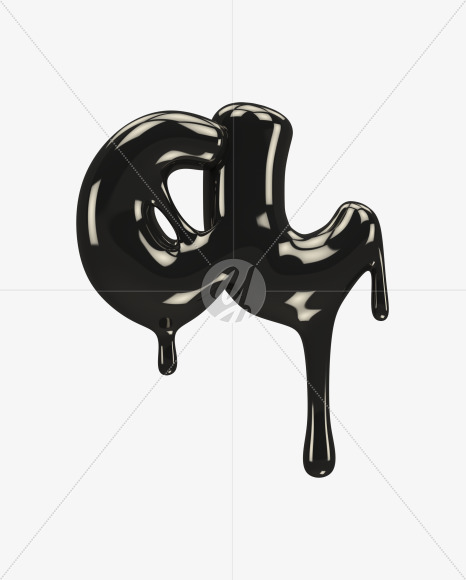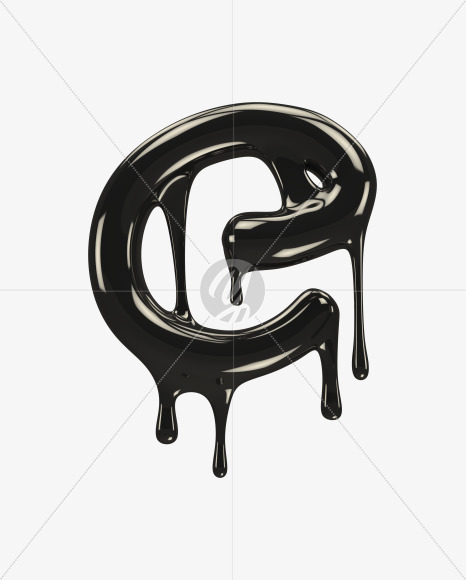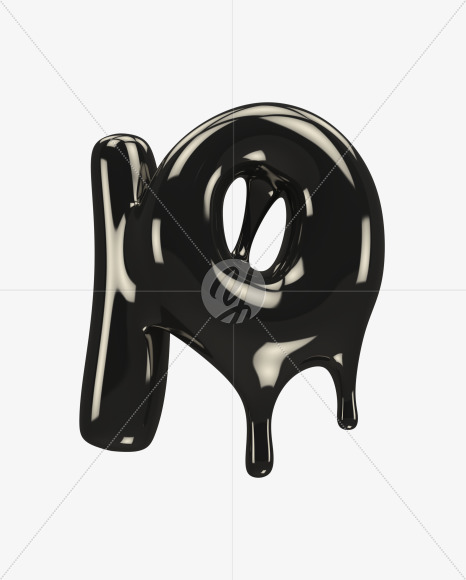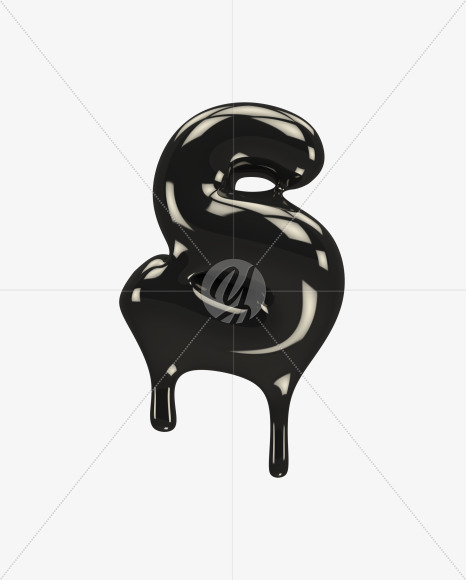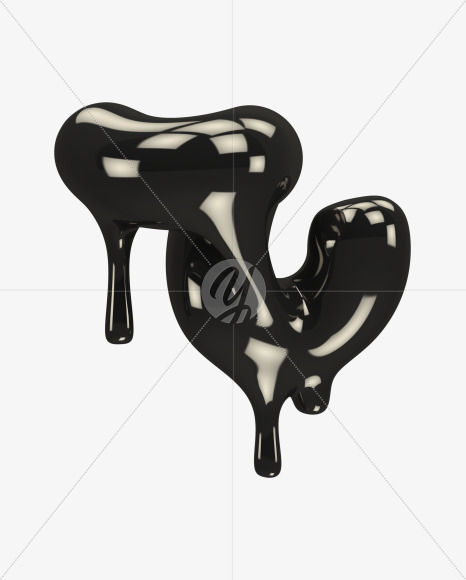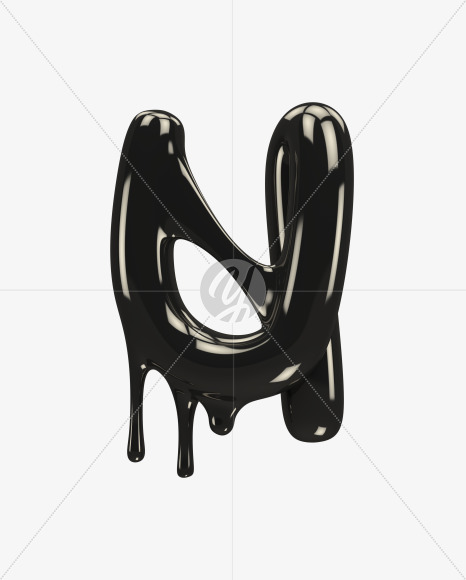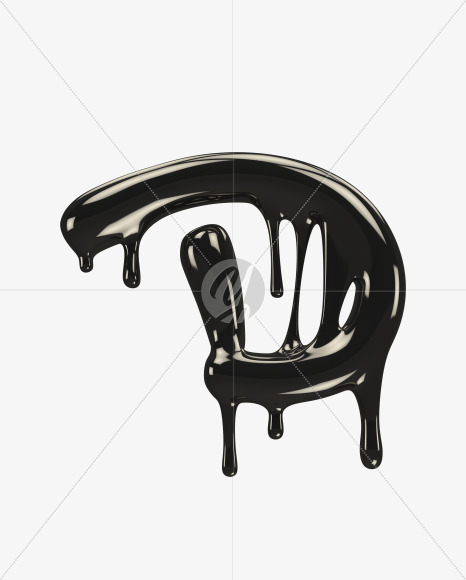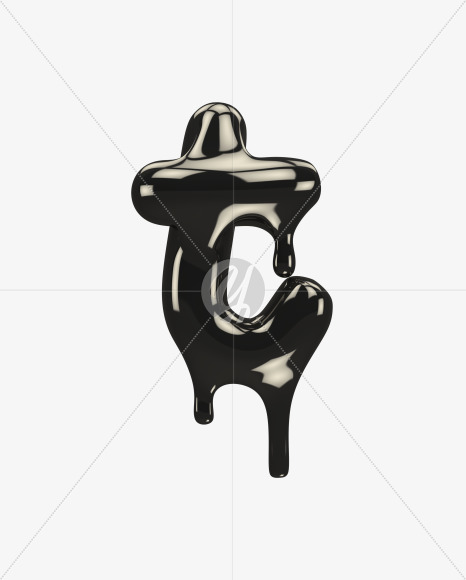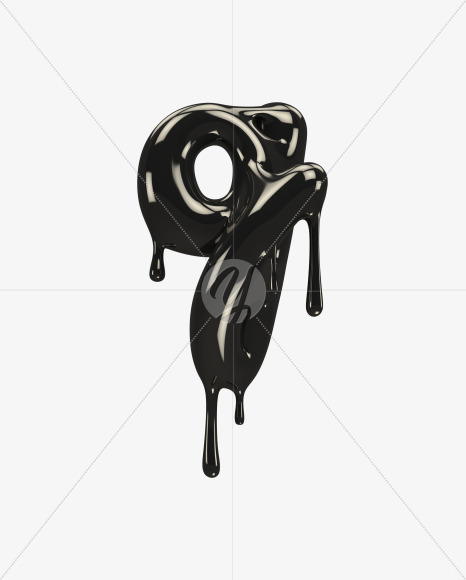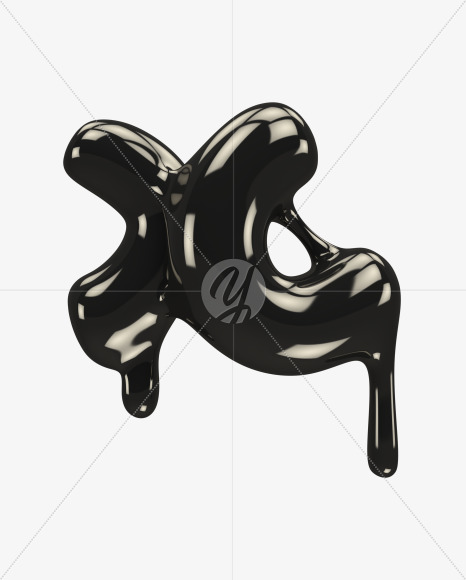
Black Oil Font bring luxury into your designs and sets everything around it on creativity fire. Moreover, you shouldn’t be afraid of a fire outbreak. The dark typeface is a safe choice because there is nothing toxic about it. So, it’s time to sing ‘Fire Meet Gasoline’ by Sia and have fun with Black Oil Font.